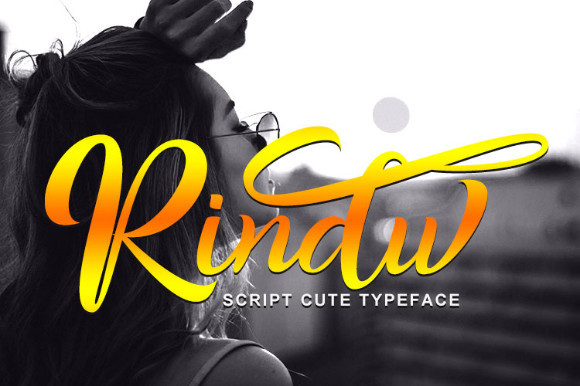
Rindu Font
Rindu is a flowing handwritten font, described by an elegant touch, perfect for your favorite projects. Fall in love with its incredibly distinct and timeless style and use it to create spectacular designs!